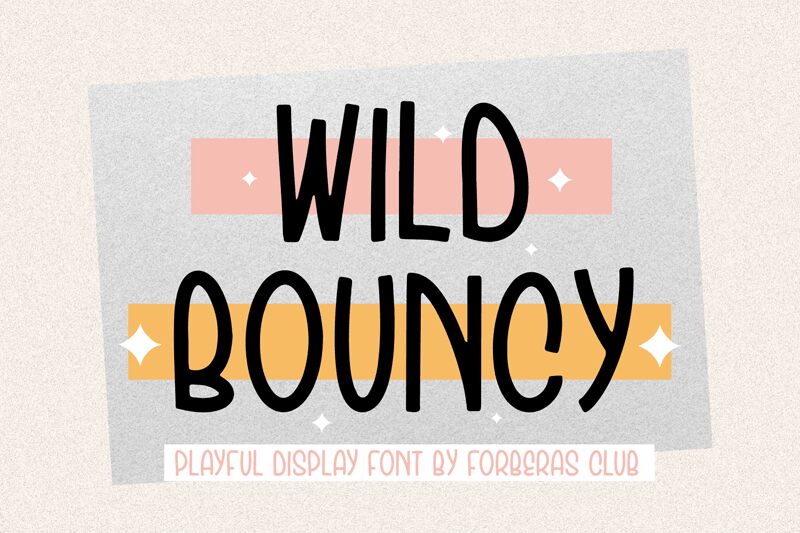
Brimming with infectious energy and a whimsical flair, the "Wild Bouncy" font by Forberas Club captivates the eye with its playful, handwritten aesthetic. Exhibiting a condensed width, this font exudes a lively, free-spirited essence that commands attention. Its dynamic strokes and organic curves lend a sense of movement and spontaneity, evoking a carefree, lighthearted mood.
This versatile font shines in a multitude of design applications, from vibrant branding and eye-catching event materials to charming packaging and engaging social media content. Its unique personality makes it an ideal choice for projects seeking to convey a youthful, spirited vibe, seamlessly complementing both modern and vintage-inspired design styles.
Wild Bouncy